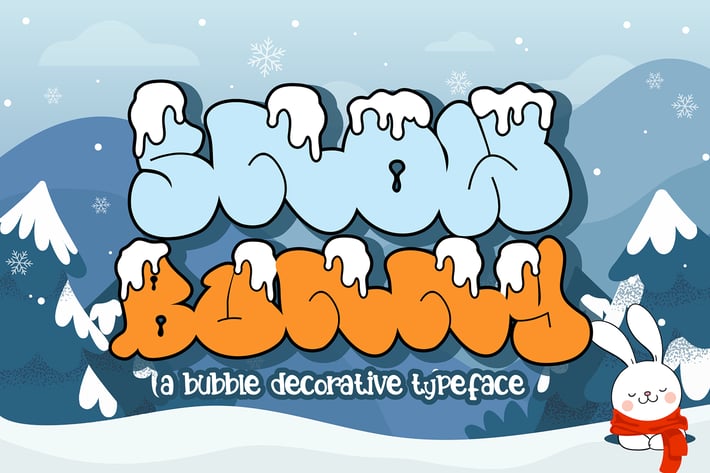
Snow Bunny - Decorative Display Font
Snow Bunny is a decorative font with a snow decoration on the top of characters and bubble looks there are bones hollow in the characters. It will elevate a wide range of design projects to the highest level, be it branding, headings, wedding designs, invitations, signatures, logotypes, wall art illustrations, labels, and much more!